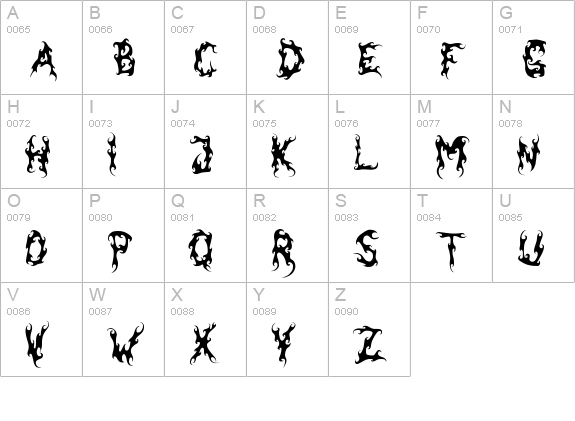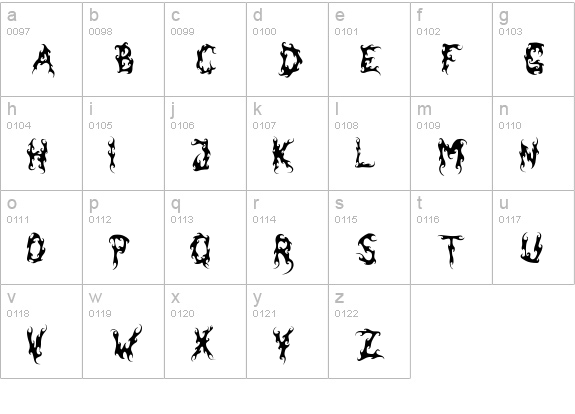
Dark Garden (©Michal Kosmulski) Font Details
Dark Garden font, created by Michal Kosmulski, is a stunning display typeface that exudes elegance and mystery. With its intricate design and intricate details, this font is perfect for adding a touch of sophistication to any project. The ornate serifs and unique letterforms of Dark Garden make it a truly distinctive choice for those looking to make a statement with their typography. Best of all, Dark Garden font is available for free download at FontsMarket.com, making it accessible to anyone looking to elevate their design work with a touch of luxury. Whether you're creating invitations, posters, or branding materials, Dark Garden font is sure to captivate and impress your audience. Elevate your designs with Dark Garden and let its beauty and sophistication shine through.